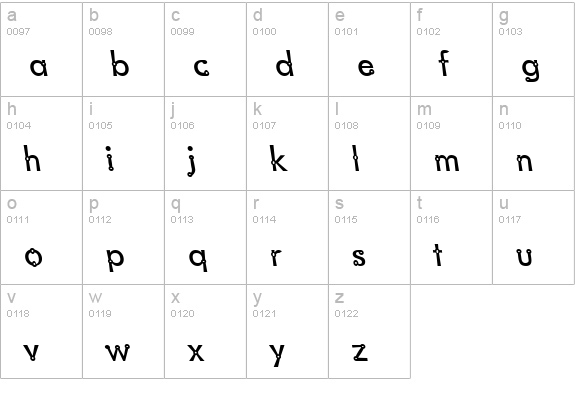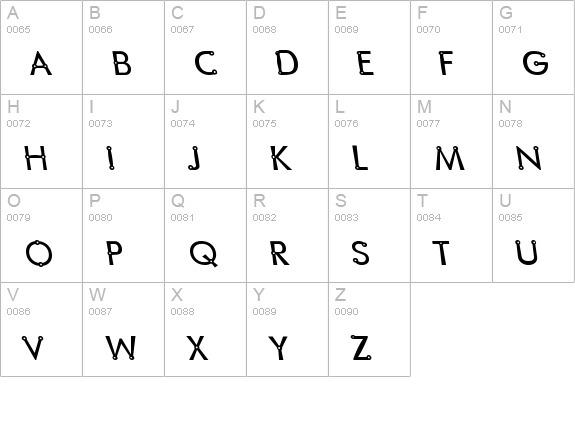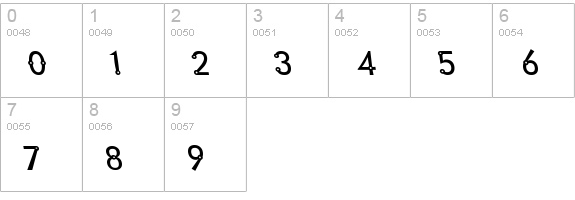
Blacksmith Delight Lefty font is a stunning display typeface that exudes a unique charm and rustic elegance. With its bold and intricate design, this font is perfect for adding a touch of vintage flair to your projects. The handcrafted look of Blacksmith Delight Lefty font evokes a sense of craftsmanship and authenticity, making it ideal for branding, packaging, posters, and more. The best part? Blacksmith Delight Lefty font is available for free download at FontsMarket.com. This means you can easily access this one-of-a-kind typeface and use it in your designs without any cost. Don't miss out on the opportunity to enhance your projects with the timeless appeal of Blacksmith Delight Lefty font. Download it today and let your creativity shine!